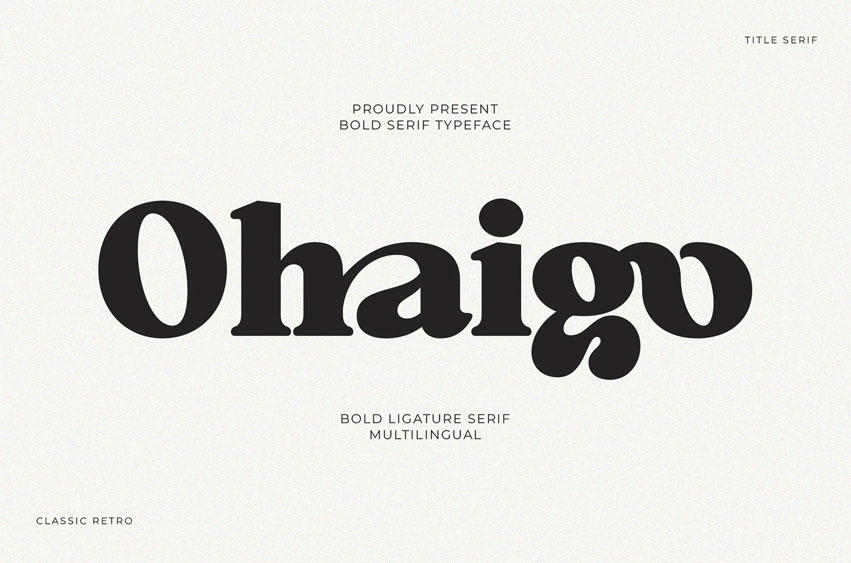
Ohaigo Font
Ohaigo Font is a bold retro-classic typeface designed to bring strong character and visual impact to your projects. With its clean and well-crafted letterforms.
Ohaigo Serif adds a timeless retro charm while keeping your design sharp, stylish, and attention-grabbing.
and some ligatures!